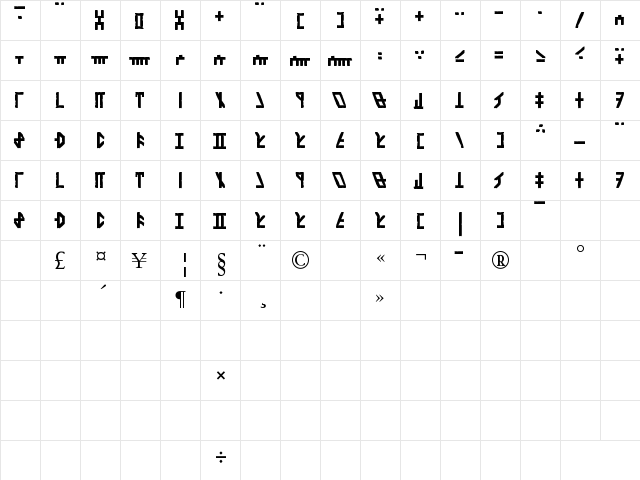
Dethek Stone Regular
| Designer | Neale Davidson |
Design Context for Dethek Stone Typeface
Dethek Stone is a composed and adaptable typeface that performs quietly and consistently across a wide range of design contexts.